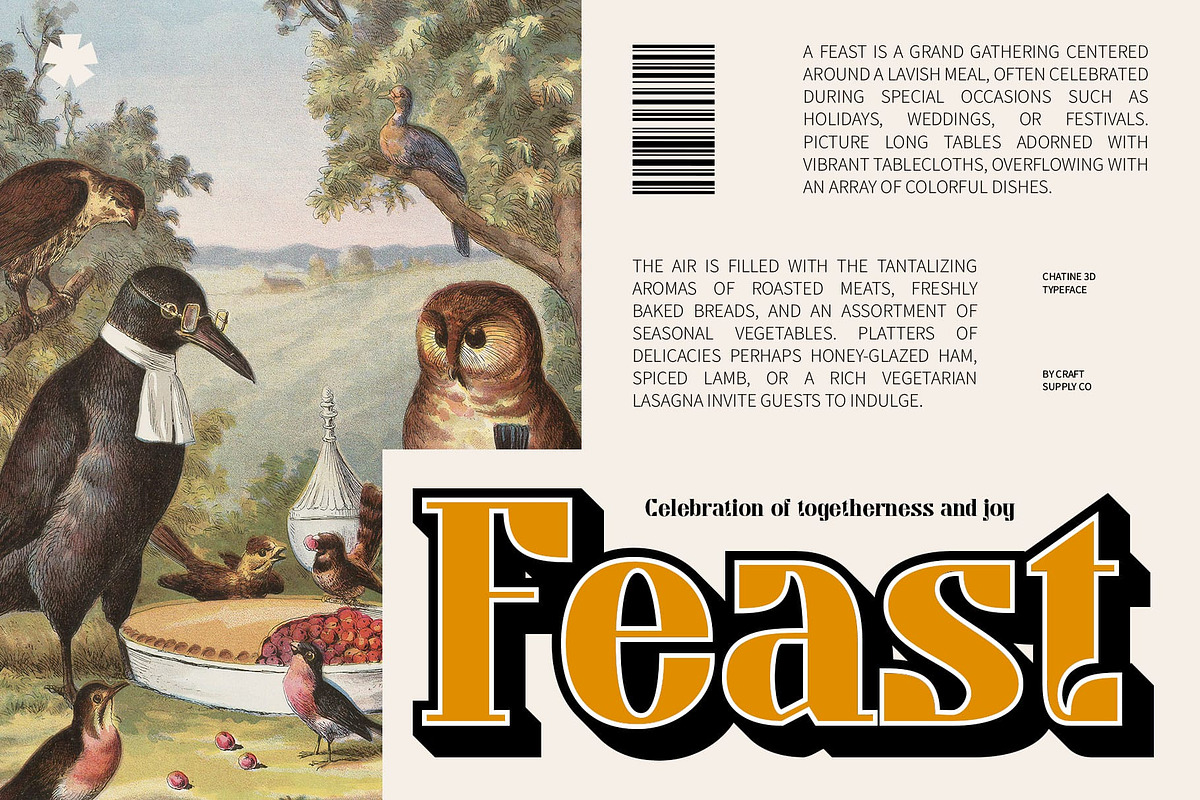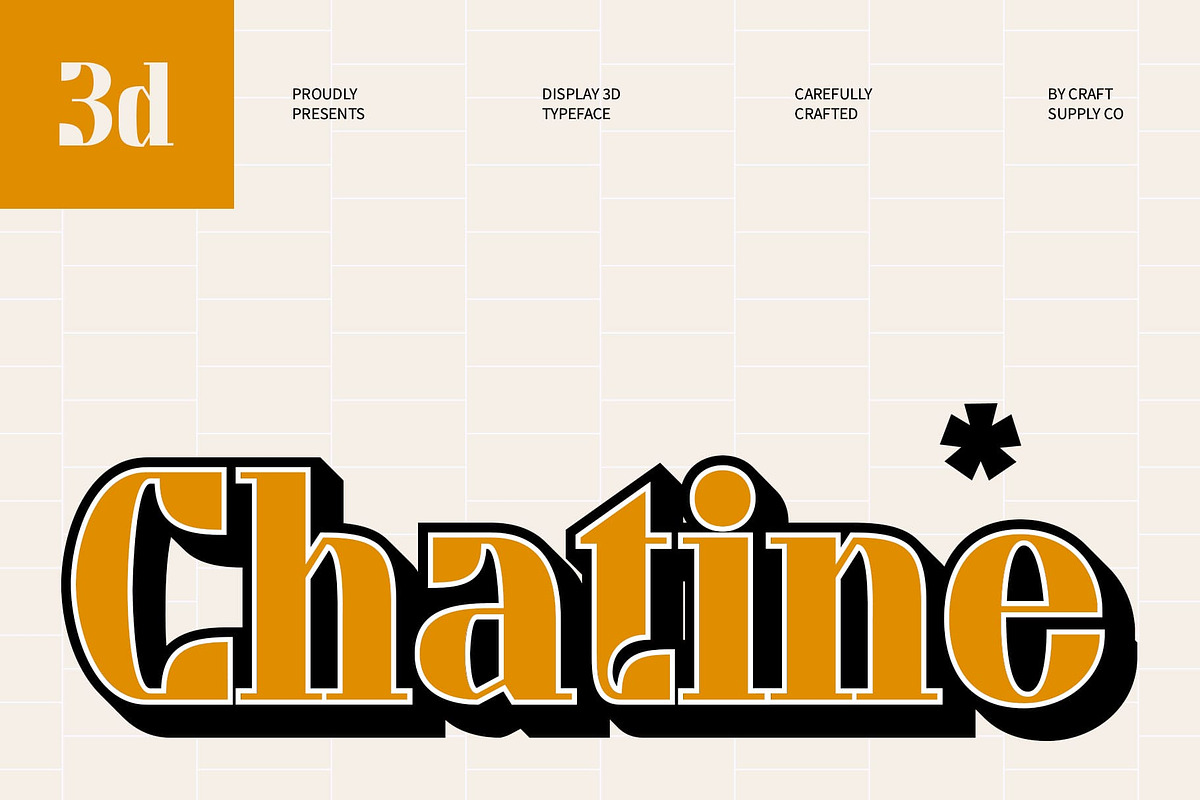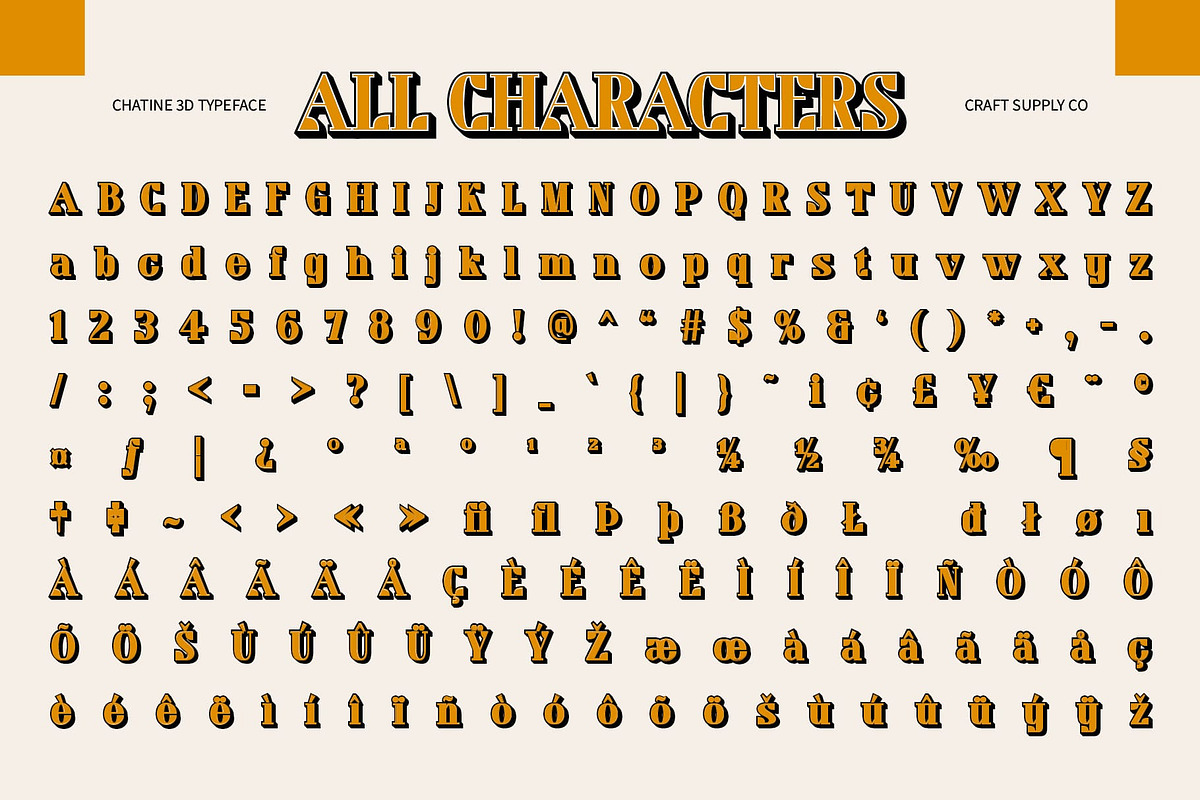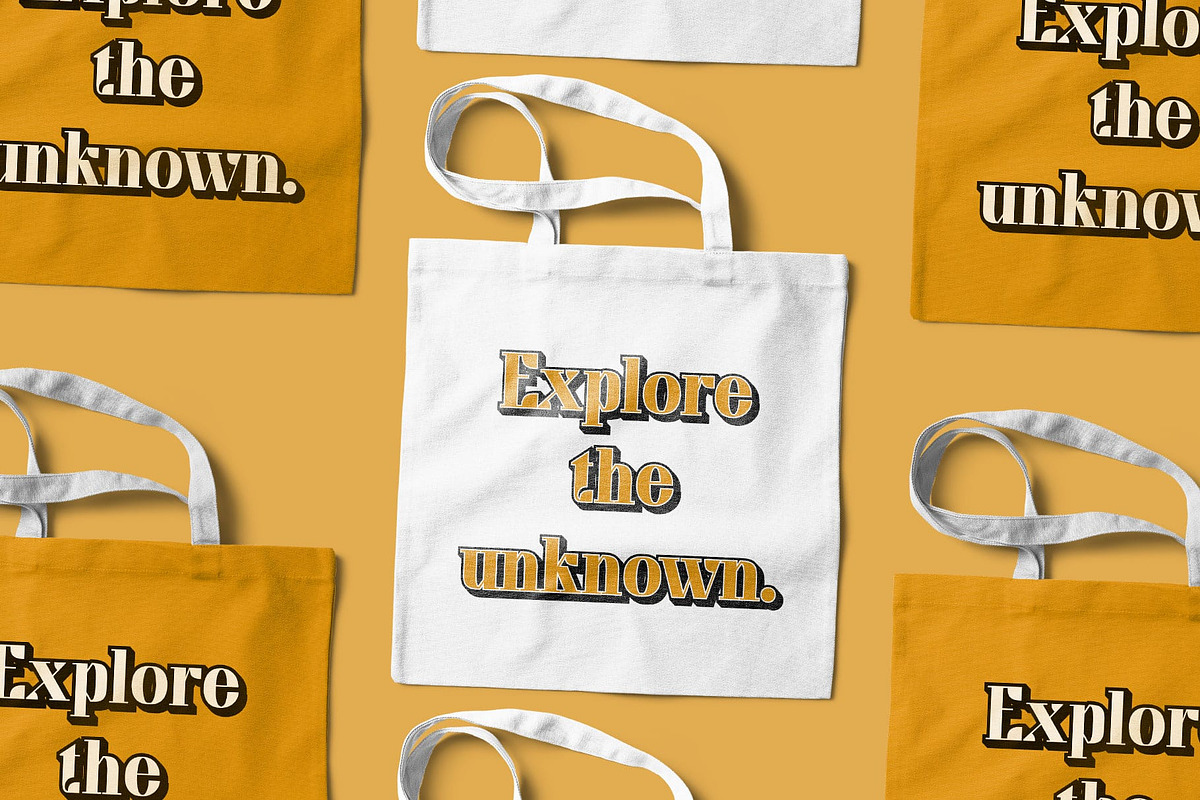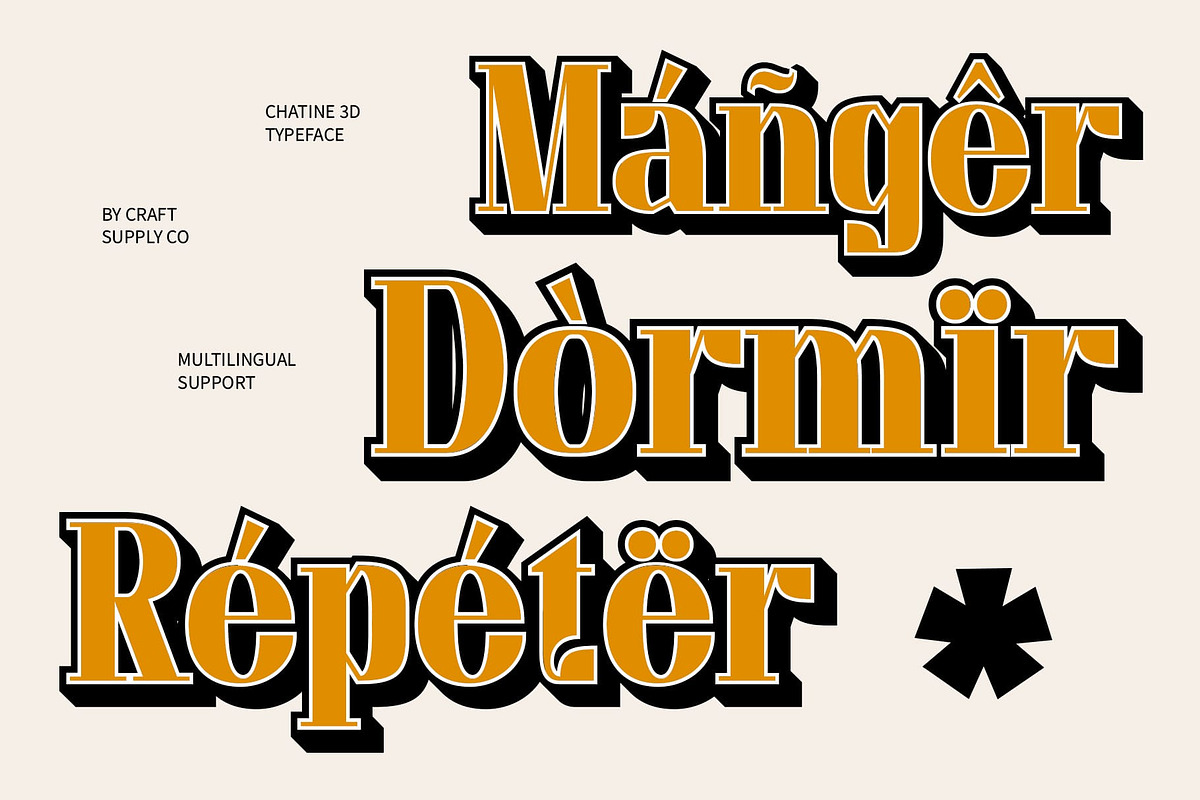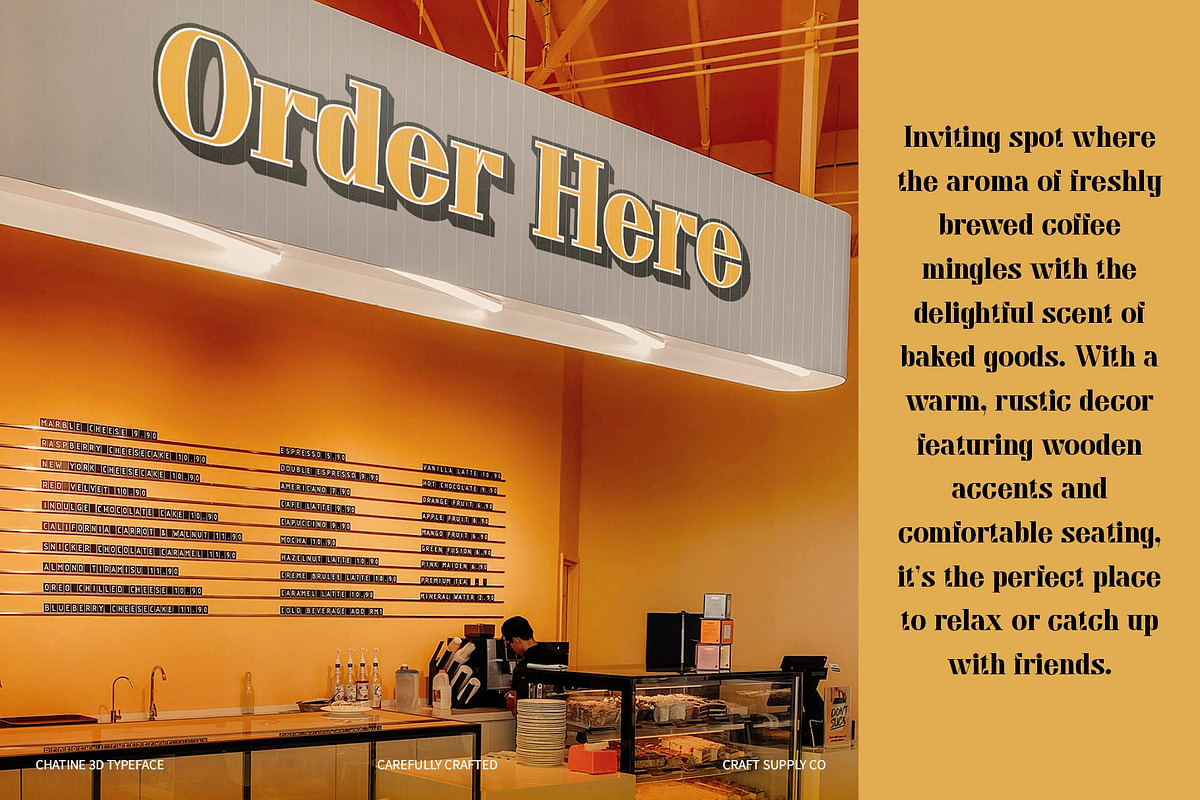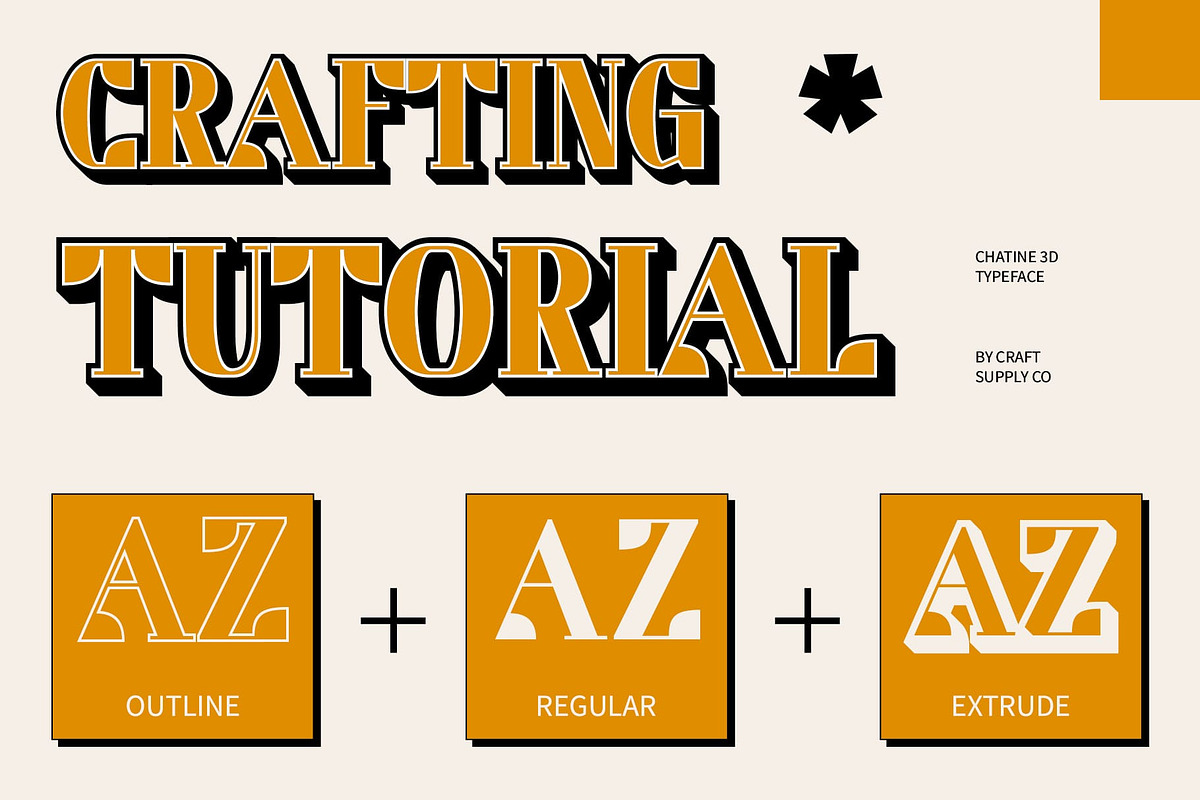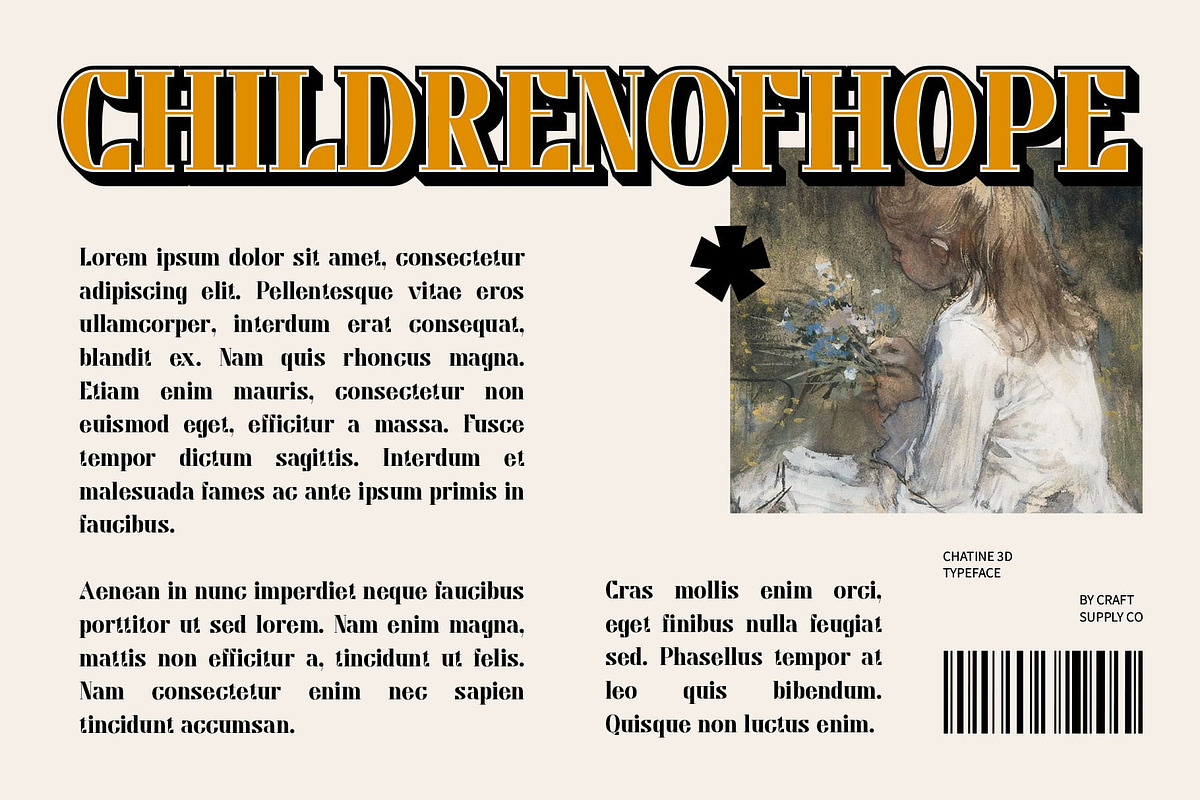
Chatine 3D
Chatine 3D Font: Retro Classic Serif Font with 3D Effects
Nostalgic Elegance Chatine 3D is a classic serif font that captures retro charm with a fresh, modern twist. Drawing inspiration from timeless serif designs, it brings a sense of elegance and craftsmanship reminiscent of a bygone era. The font’s bold structure and vintage detailing give it a distinctive character, full of personality and charm.
Dynamic 3D Effect Adding to its nostalgic aesthetic, Chatine 3D features a striking 3D effect, giving each letter impressive depth and a sense of movement. This layered dimension transforms it into a lively visual experience, ideal for designs seeking to capture attention and leave a lasting impact. The combination of retro vibes with a modern 3D twist makes Chatine 3D truly unique.
Perfect Applications This font shines in projects that blend vintage style with bold visuals, such as vintage branding, music posters, album covers, or editorial designs. Its rich character and visual appeal allow it to take center stage, making it an excellent choice for designs that aim to stand out.
Classic Meets Bold With its timeless serif structure enhanced by 3D effects, Chatine 3D offers a harmonious mix of classic elegance and contemporary energy. It’s the perfect font for anyone looking to combine sophistication with a bold, visually captivating style that commands attention and evokes nostalgia, all while delivering a fresh and memorable impression.